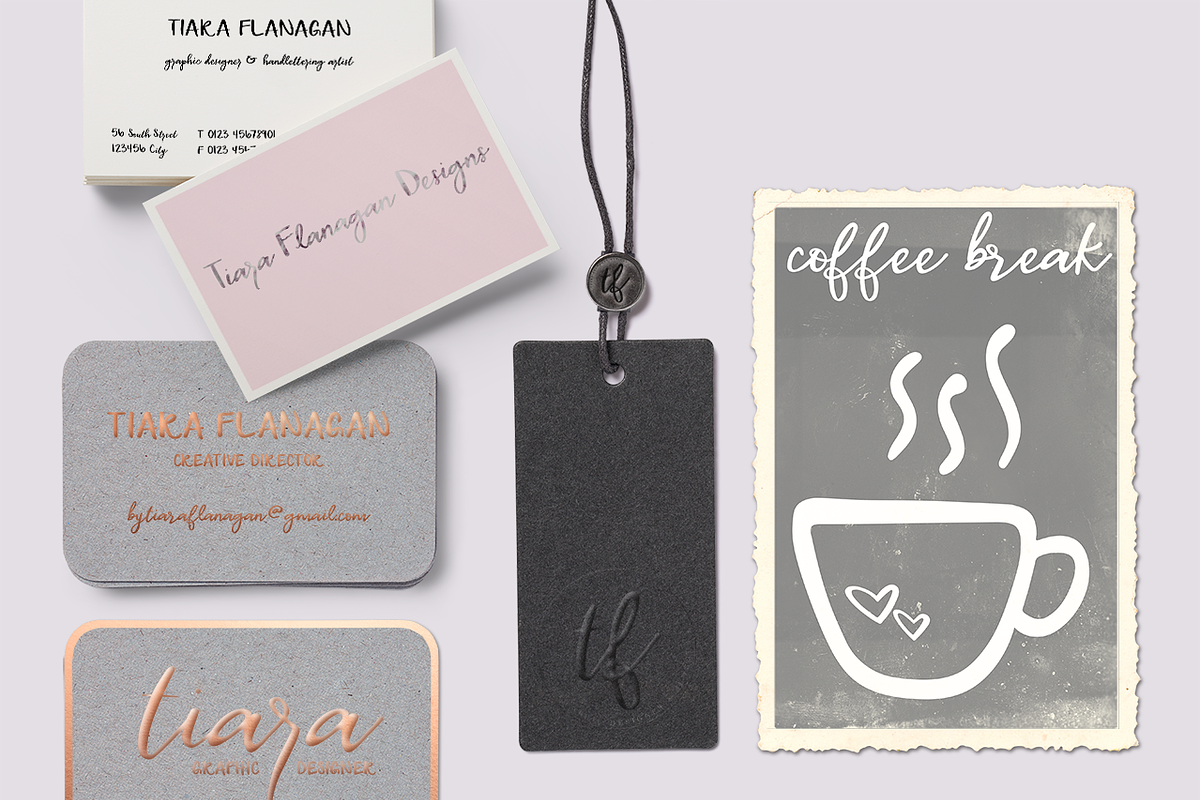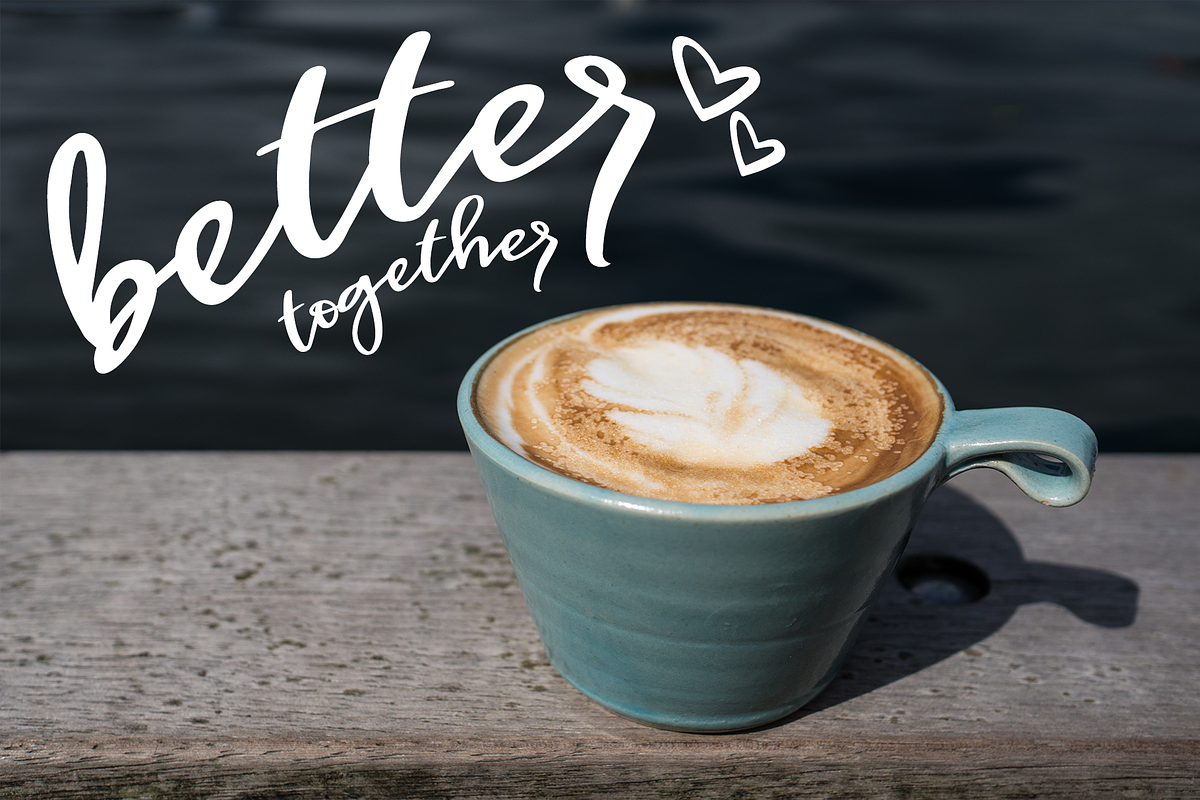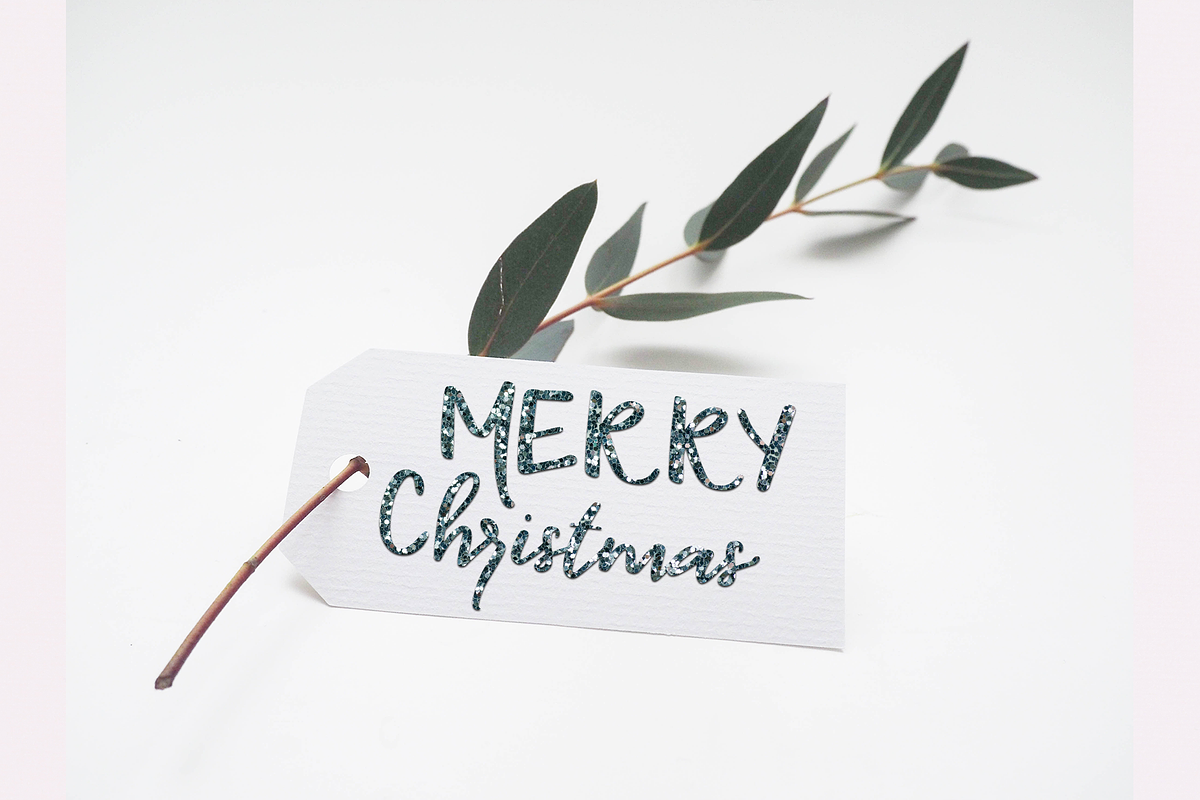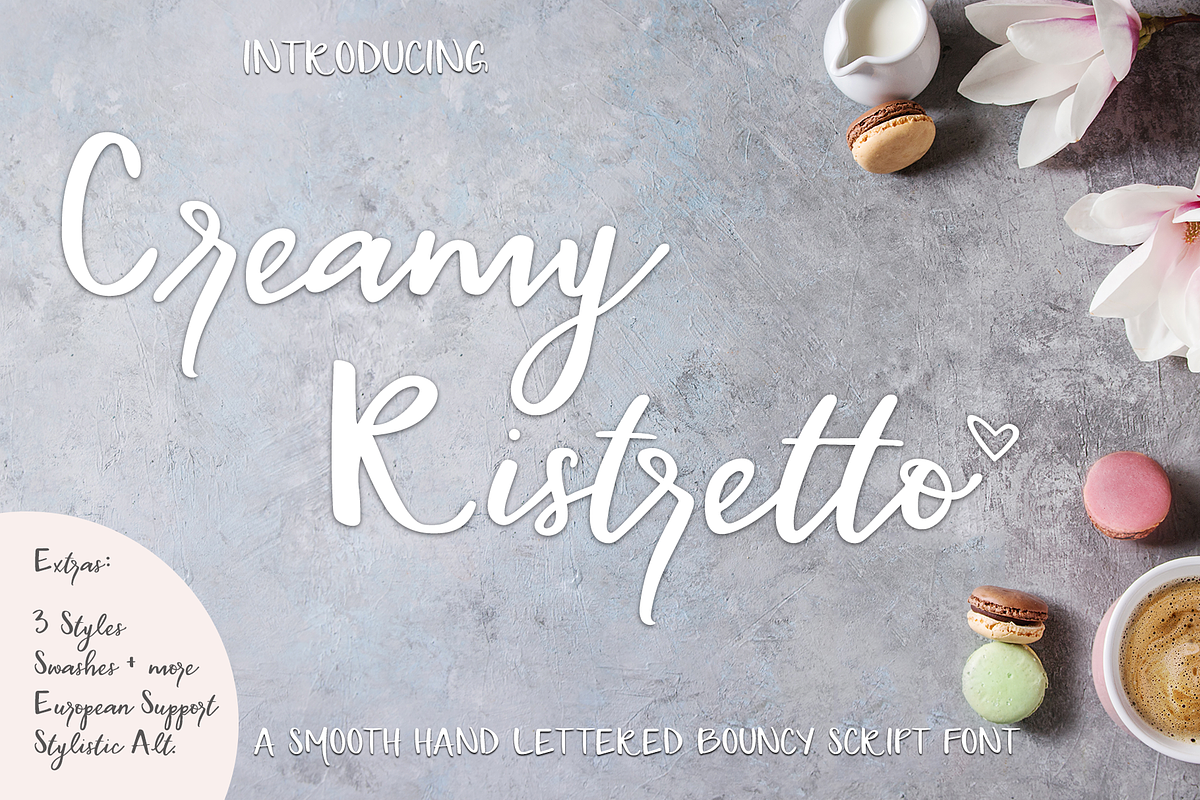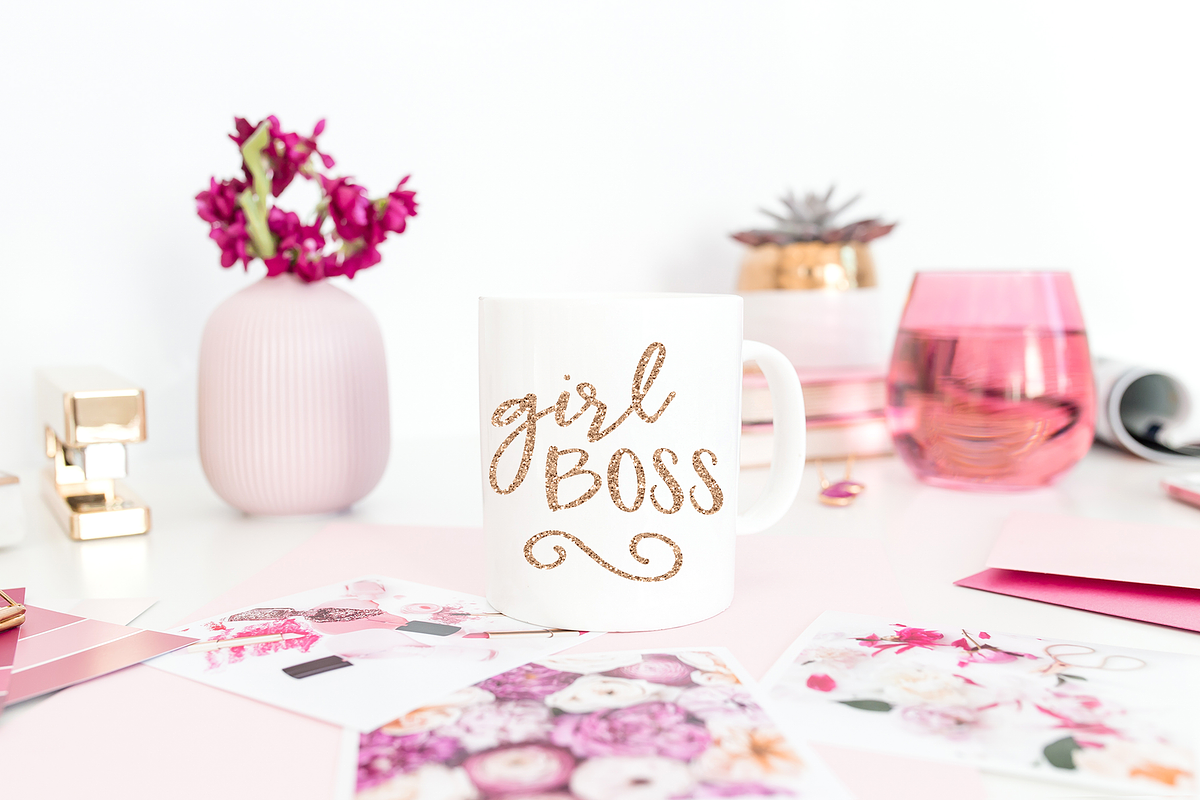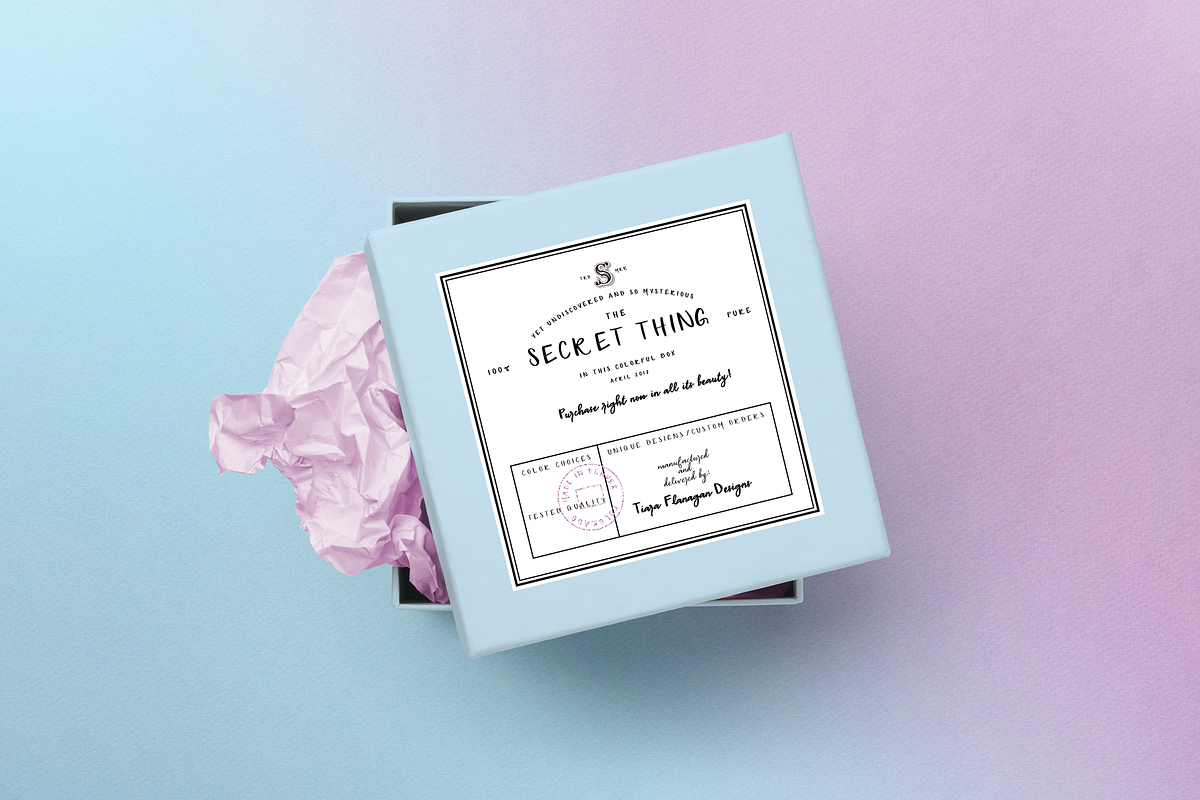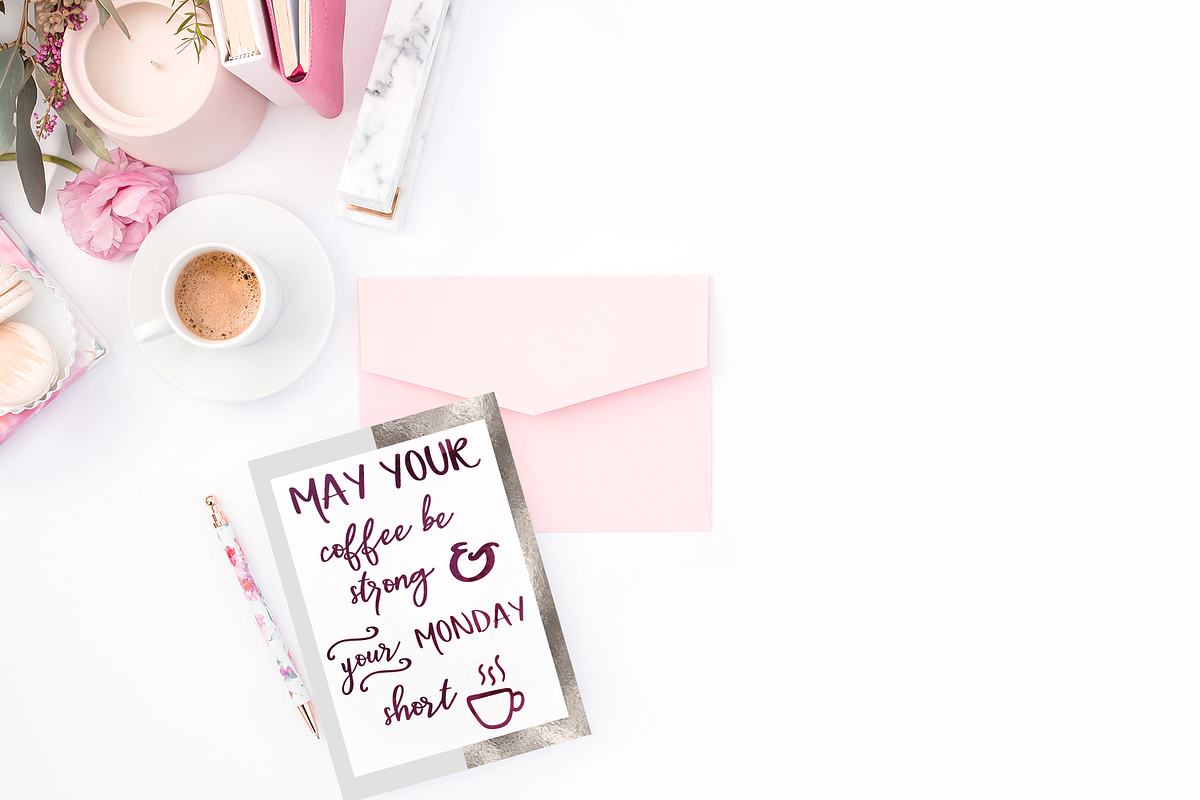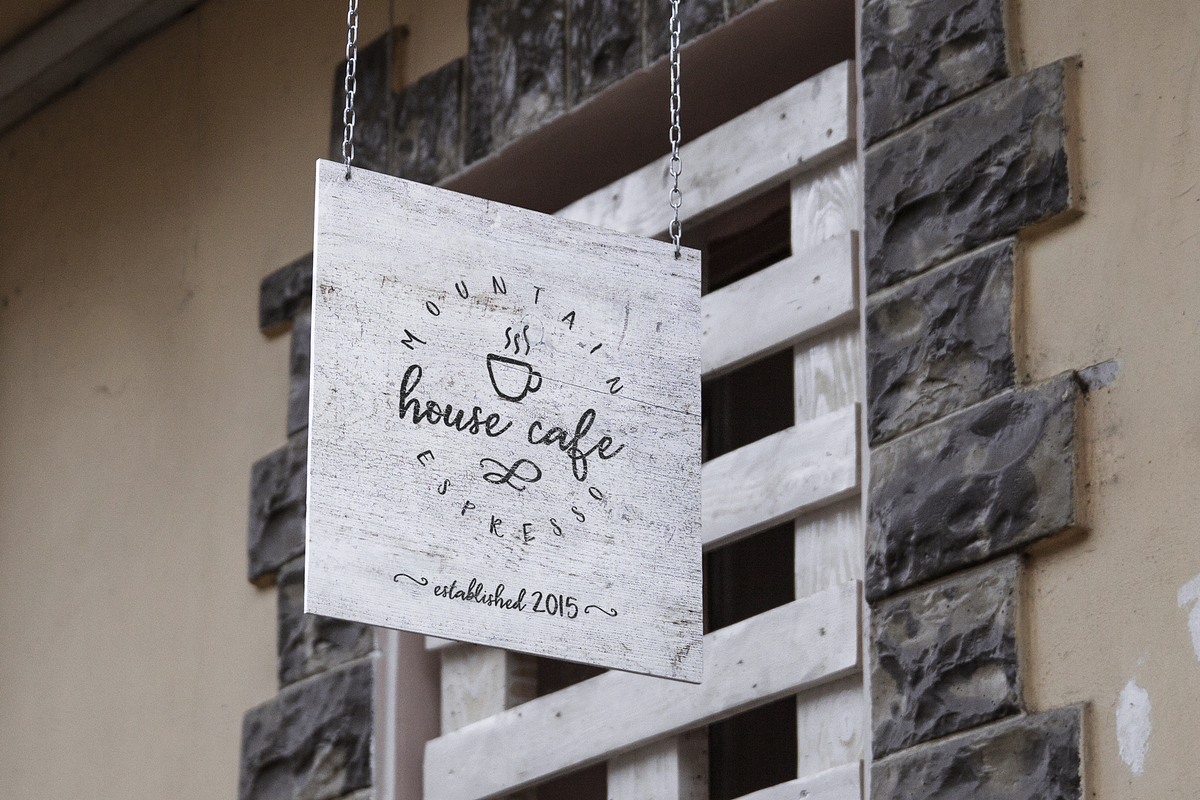
Creamy Ristretto Script Font
Give your designs unique personality with Creamy Ristretto, a smooth hand lettered bouncy script font! Perfect for greeting cards, branding, logo's, social media, packaging, magazine layouts, prints, vinyl projects and more!
- Creamy Ristretto includes 4 styles, each one that brings a special distinctiveness: Light Script, Bold Script, Regular Script and Symbols.
- FEATURES What you get with Creamy Ristretto: A full Script style (upper sans serif and lowercase script) A regular script style PLUS a light
Creamy Ristretto Script Font by Weathered Grace Designs fits naturally into Branding, posters, packaging, typography.